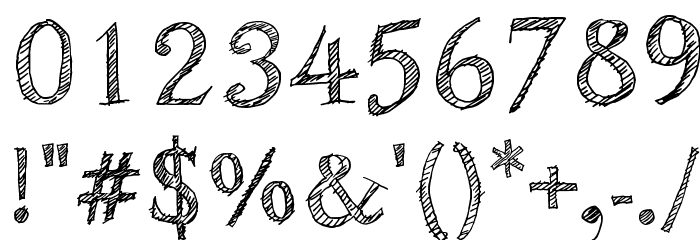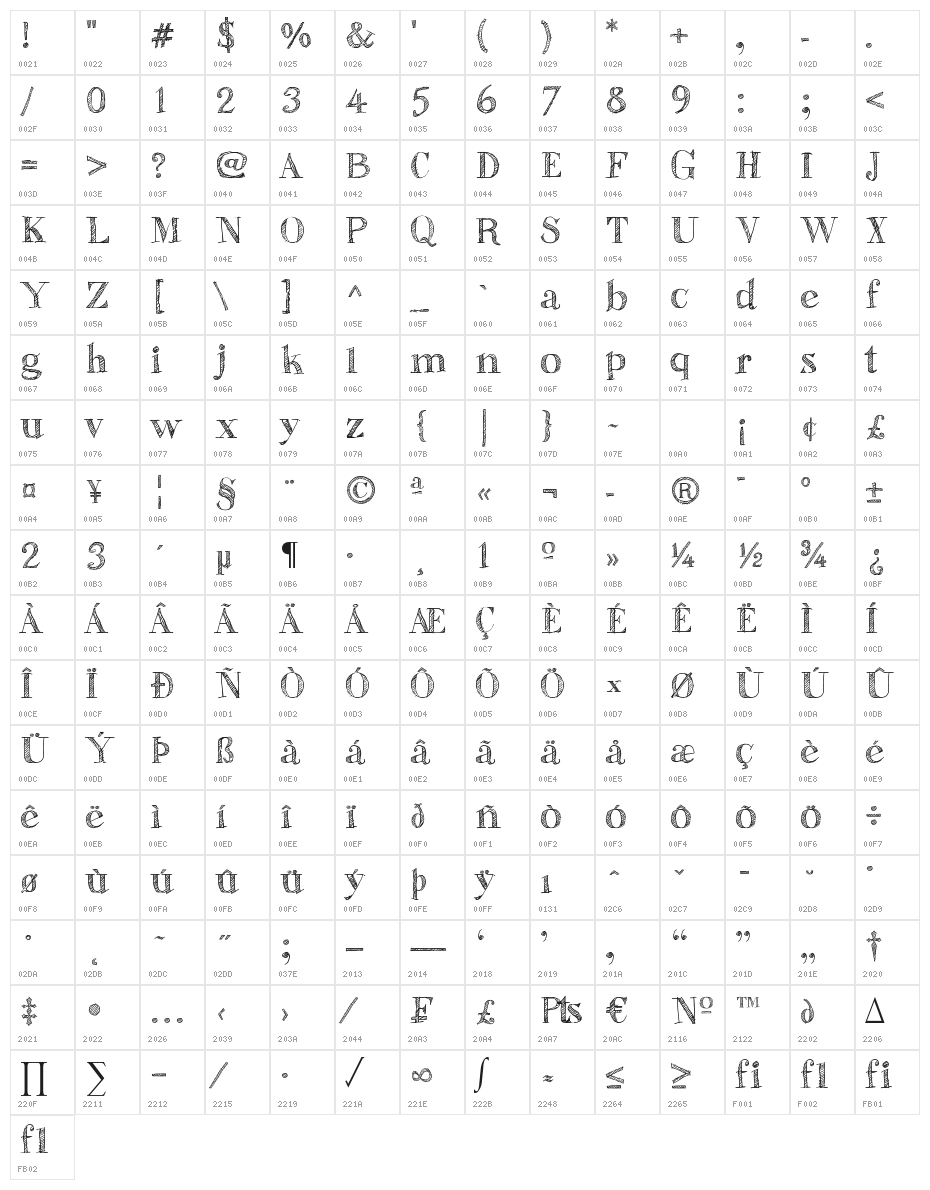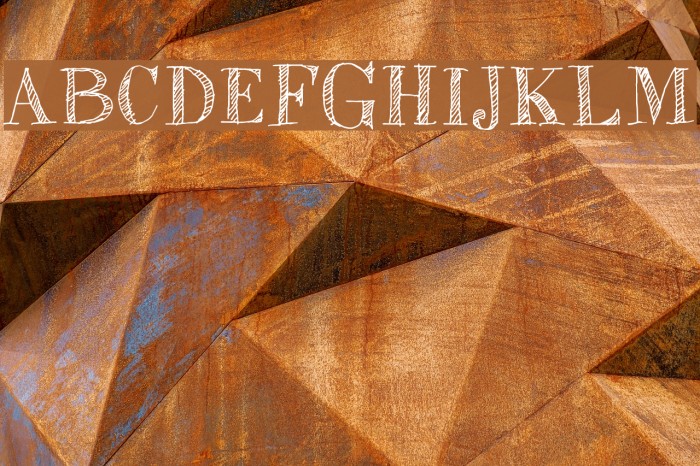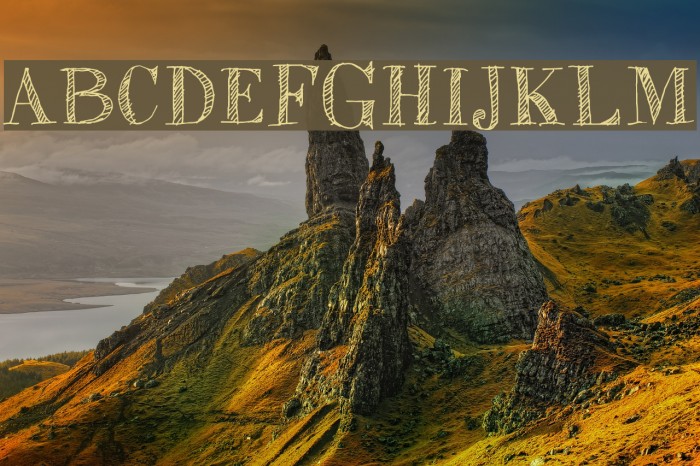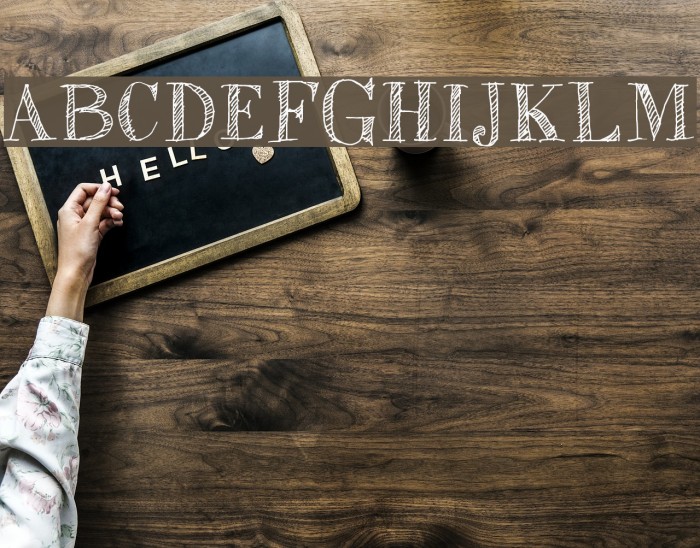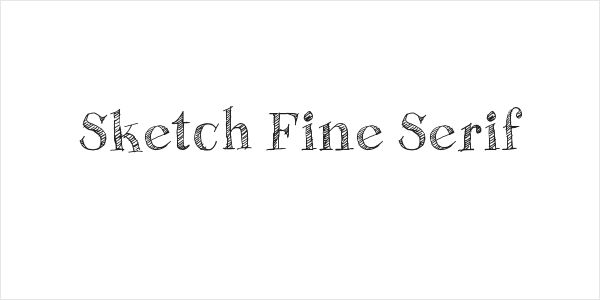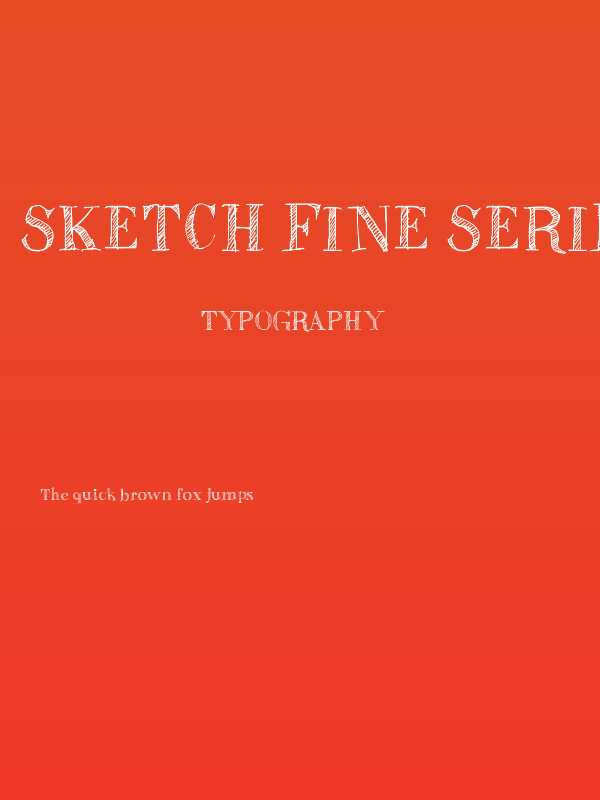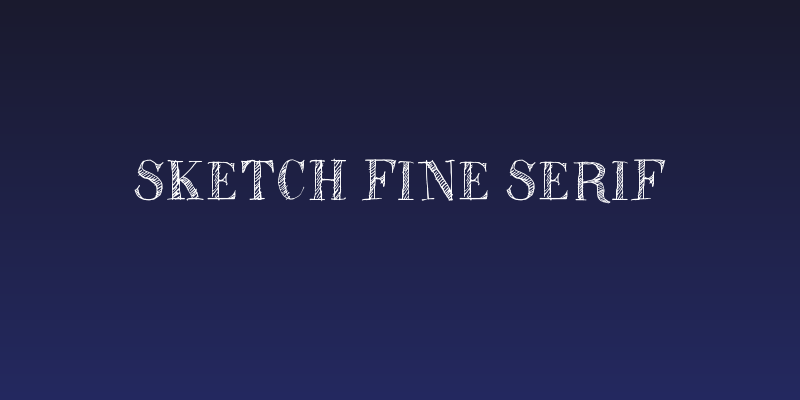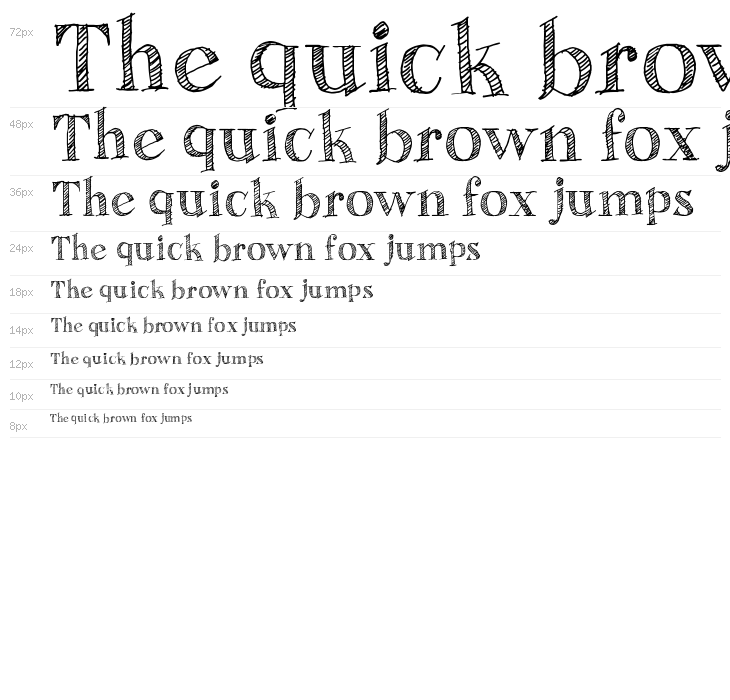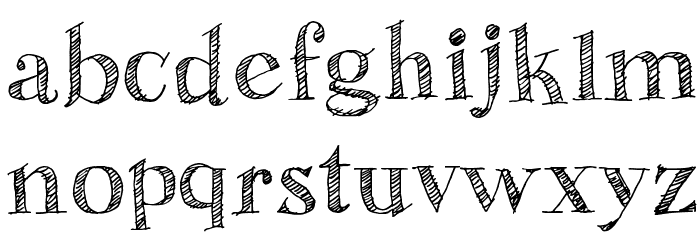
Sketch Fine Serif Font
Sketch Fine Serif Description
This font features a unique hand-drawn style with a sketch-like appearance, characterized by its fine, detailed strokes and serif elements. Each character is crafted with a textured, cross-hatched pattern that gives it a distinct artistic flair. The uppercase letters exhibit a classic serif structure, while the lowercase letters maintain a consistent style with slight variations in stroke width. Numbers and special characters follow the same sketchy aesthetic, ensuring a cohesive look across all elements. The font's playful yet sophisticated design makes it suitable for creative projects that require a touch of elegance and individuality.
| Use Case | Logos, Headlines, Artistic projects |
| Proposed Projects | Ideal for artistic projects, invitations, greeting cards, and branding that seeks a handcrafted, elegant touch. |